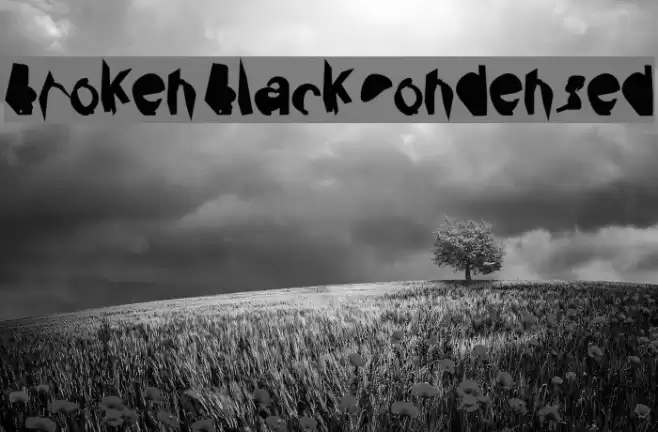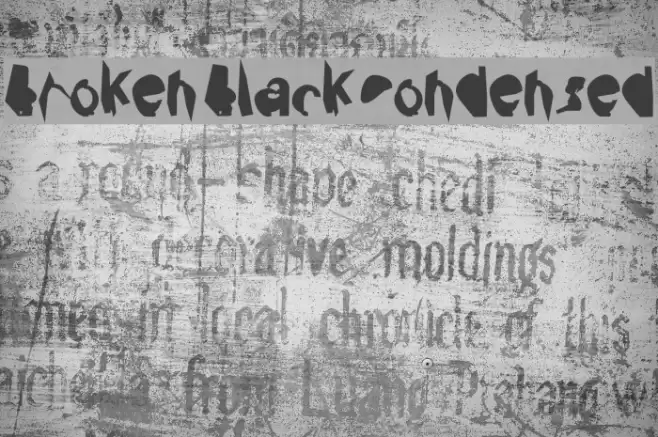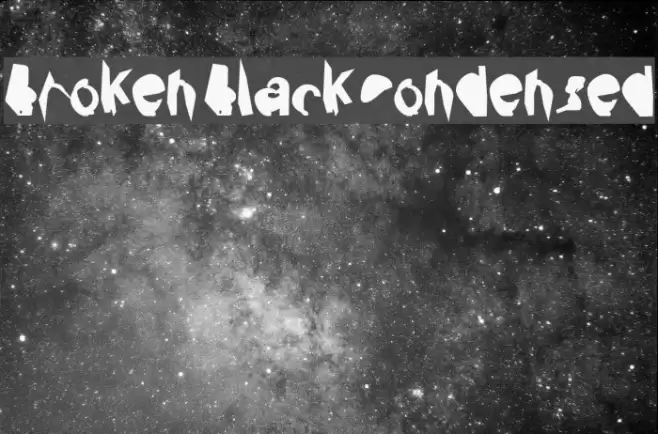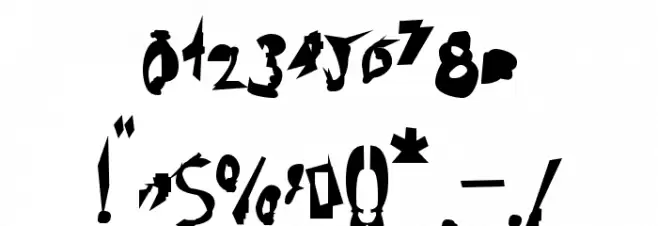
Broken Black Condensed Font
Broken Black Condensed Description
This font features a highly irregular and jagged design, with each character appearing as if it has been cut or torn from paper. The bold, angular shapes create a sense of chaos and movement, making it stand out dramatically. The uppercase and lowercase letters maintain a consistent style, with sharp edges and varying widths that contribute to its unique appearance. Numbers and special characters follow the same aesthetic, adding to the overall cohesiveness. This font is ideal for projects that require a bold, unconventional look.
A bold, jagged font with irregular, angular shapes for a dramatic effect from Uncategorized fonts.
- Proposed Projects: Suitable for edgy posters, album covers, graffiti art, and any design needing a rebellious or unconventional touch.
- Character Spacing: Tight